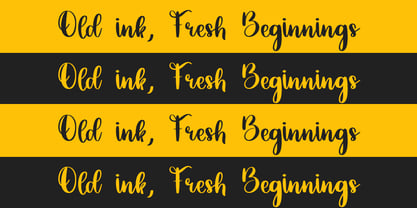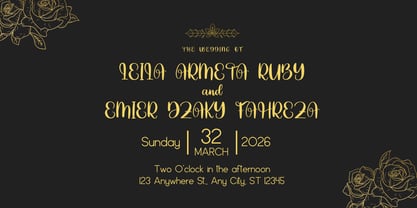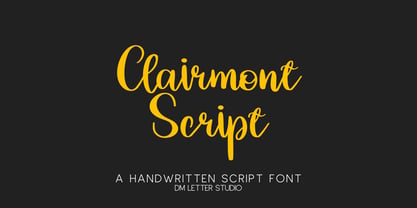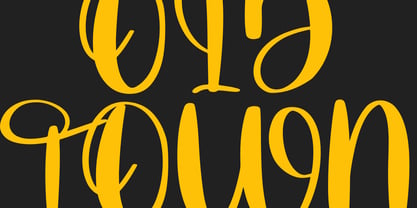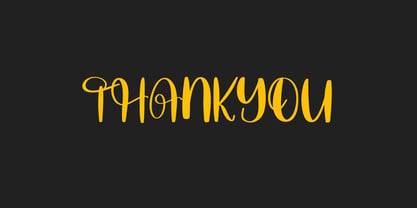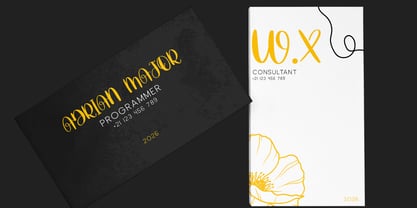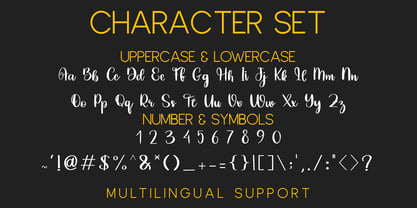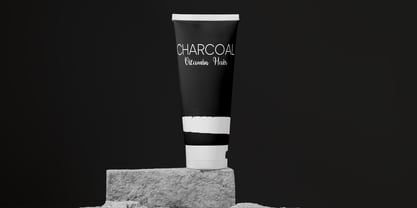
Clairmont Script
by DM Studio
The Clairmont Script Font Family was designed by Dimas Prasetyo and published by DM Studio. Clairmont Script contains 1 styles.
Meet Clairmont Script, the Elegant Script Font Clairmont Script is a refined handwritten script with graceful curves and a smooth, confident flow. The strokes feel polished yet natural, giving your words a romantic and upscale presence. Each letter connects beautifully, creating seamless phrases that look handcrafted and premium. Use Clairmont Script for wedding branding, invitations, luxury packaging, beauty logos, social media quotes, and signature-style designs. As a result, your typography feels elegant, timeless, and effortlessly sophisticated.   Why Clairmont Script sells First, Clairmont Script installs quickly and works smoothly in Canva, Photoshop, Illustrator, and Procreate. Next, the balanced stroke weight keeps it readable while still delivering high-end script character. Then layouts come together faster because the flowing rhythm keeps spacing consistent across words. Moreover, elegant script fonts are always in demand for weddings, boutique businesses, and personal branding. Therefore, Clairmont Script fits perfectly into premium and romantic design collections.   Fast layouts with the Clairmont Script Font Start with brand names or short phrases to highlight the flowing connections. After that, pair Clairmont Script with a classic serif for a luxury look or a minimal sans serif for modern contrast. Because the style is refined, it works beautifully on soft neutral backgrounds and high-contrast layouts. In addition, try increasing line spacing slightly for a lighter, more airy composition. Finally, save palettes like ivory and gold, blush and champagne, navy and cream, or charcoal and beige for cohesive branding sets.   Creative uses and quick wins Wedding invitations and save-the-date cards Luxury logos and boutique packaging Beauty and skincare branding Social media quotes and elegant product labels What you get Uppercase and lowercase letters Numbers and basic punctuation Design tips for Clairmont Script Use Clairmont Script for headlines, signatures, and accent text rather than long paragraphs. Also, give it generous spacing so the letter connections stay crisp. For print, export at 300 DPI to maintain smooth curves. For digital use, scale slightly larger so thin strokes remain sharp on mobile screens. Finally, keep decorative effects subtle and let the natural elegance stand out.